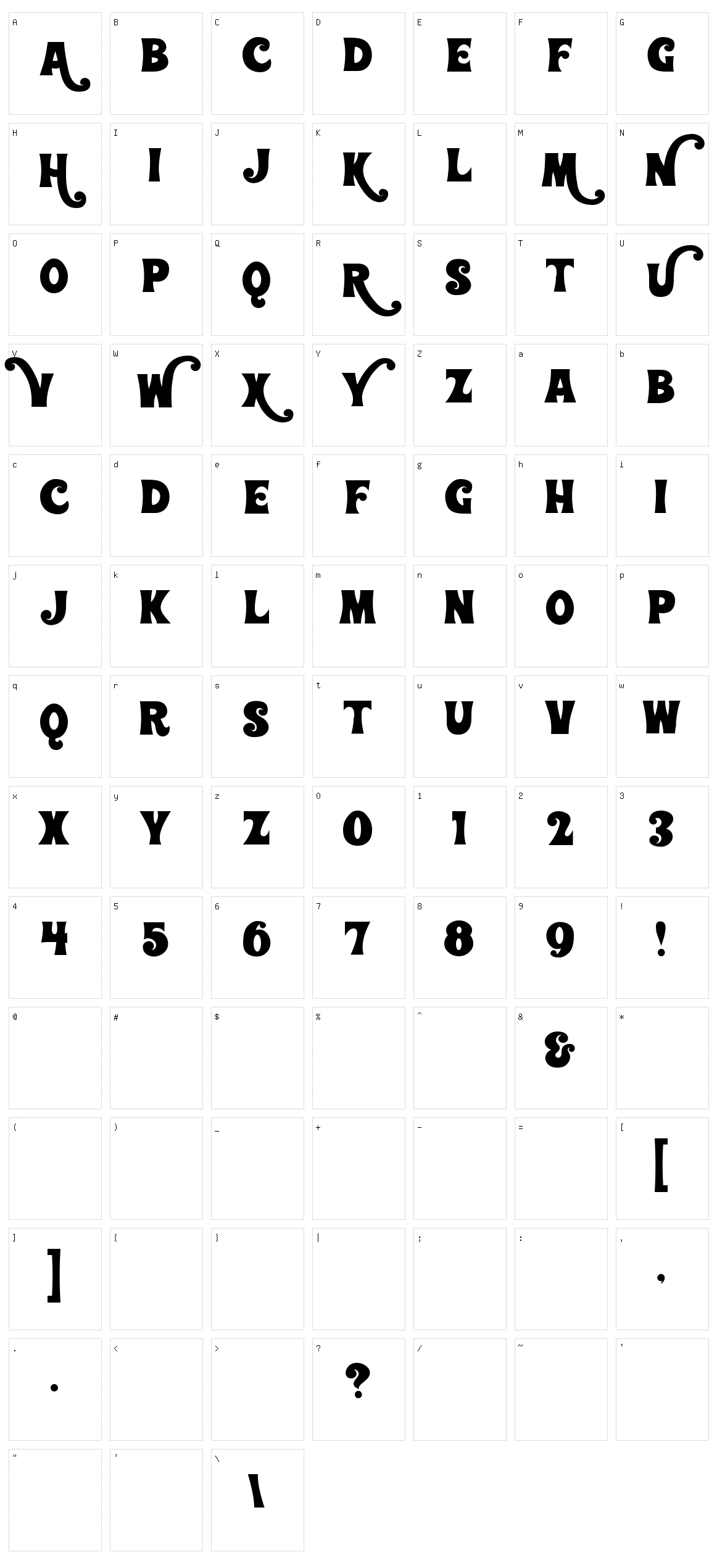
Need a little fun in your project? Step right up and get your Wonderbar! This mouth watering display font captures the whimsical feel and style of being a kid in the 70's. Basic latin, punctuation, kerning, European accents, diacritics, alternates, stylistic sets, and a few ligatures are included in the full
version. You can also access the alternates through the glyphs panel or your software program. Due to the loopy uppercase ascenders and descenders glyph overlap is to be expected. Use in a children's book, poster, or packaging. Guaranteed to not rot your teeth!